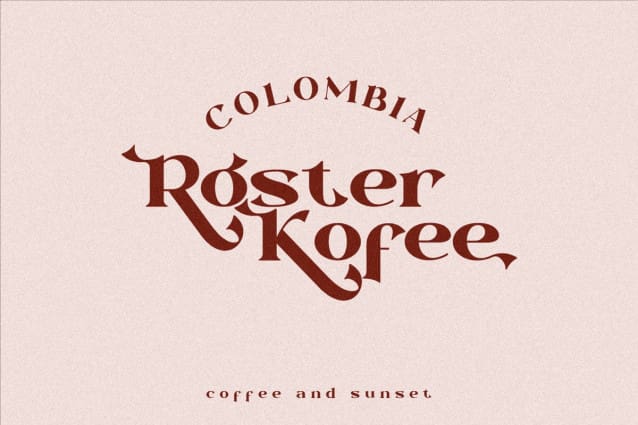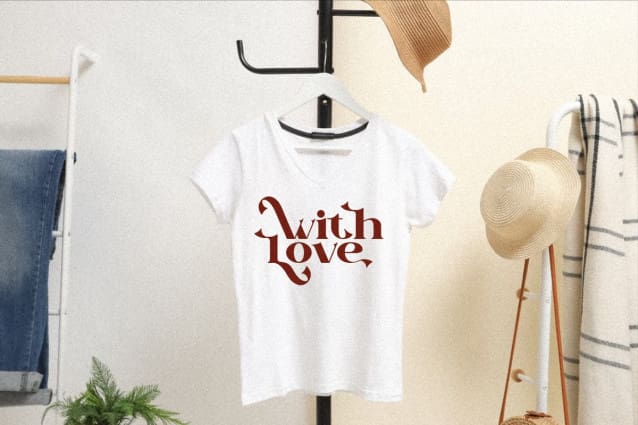
Macher Font
Macher Font – Modern Font is a bold and authentic display font. The font is suitable for any branding project like logo, t-shirt printing, esport, and many more. outstanding in a wide range of contexts.